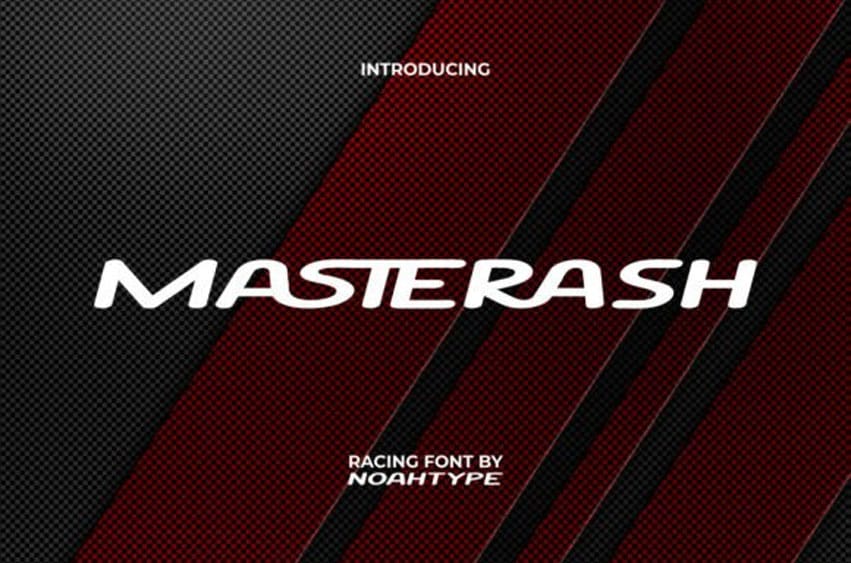
Masterash Font Unleash the speed with the Masterash font, a powerful, dynamic display typeface built for action and high-octane branding.
Clearly inspired by automobile racing and extreme sports, this font captures motion and adrenaline with its fluid, italicized form and distinctive letter shapes.
The subtle but deliberate curves and sharp angles on letters like the R and A mimic the sleek lines of a race car. The thick, solid strokes of the Masterash typeface ensure maximum impact and legibility, even at speed.
This versatile font is the ultimate choice for automotive graphics, sports logos, gaming titles, energetic posters, and any project that needs to communicate power, velocity, and a competitive edge. Use the Masterash font to put your design in the fast lane.